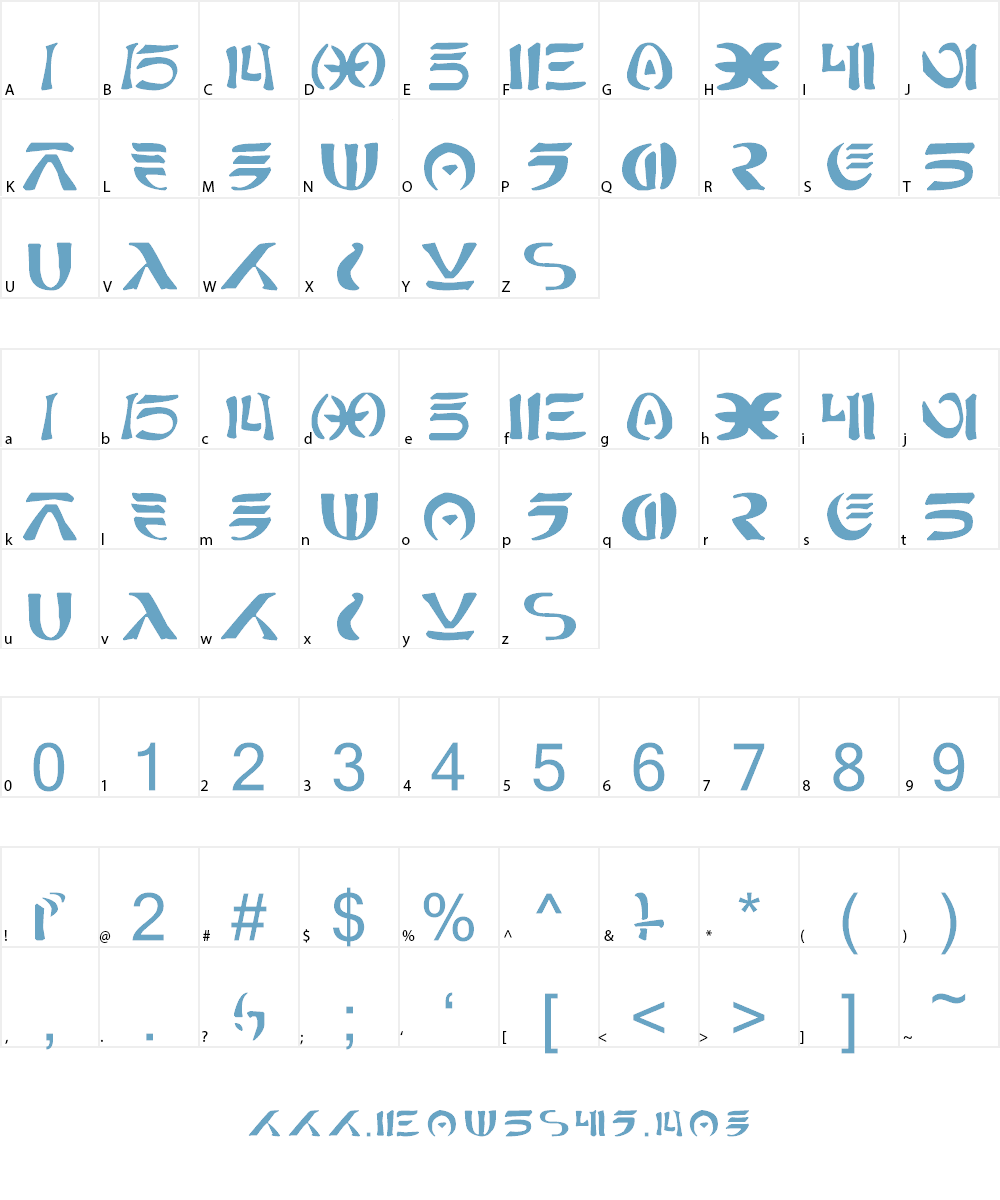
This font is a "canon" version of the Star Wars alphabet known as "Naboo Futhork", which appears in the Star Wars prequels, notably The Phantom Menace. The details of this font were taken from the passcodes screen in the 2000 game "Battle For Naboo".
This font includes all letters, ampersand (&), question mark, and exclamation point. Note that there is no difference between uppercase and lowercase letters. Also, kerning has been enabled for this font.